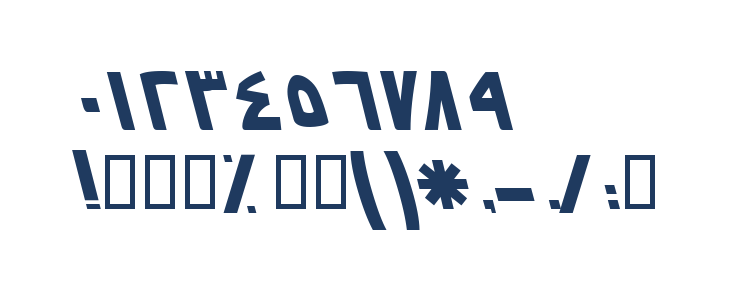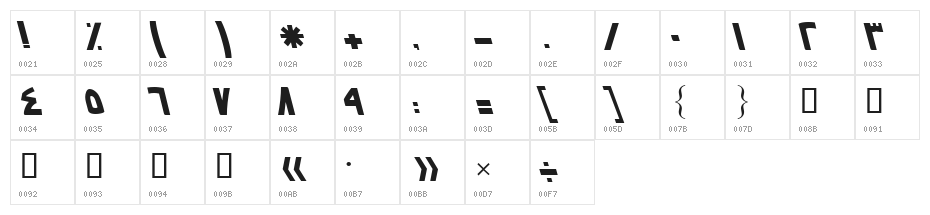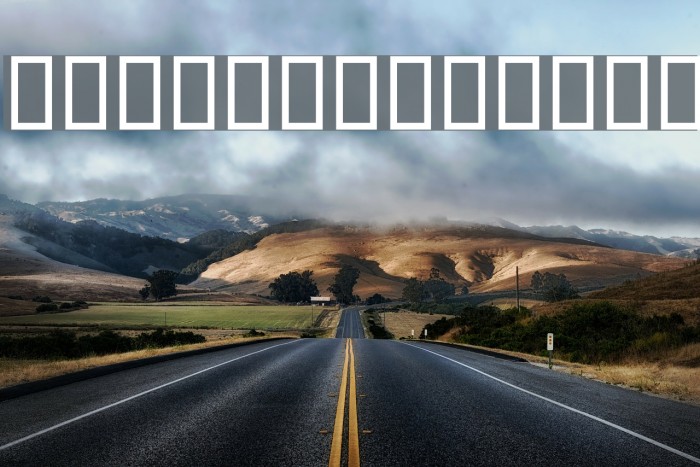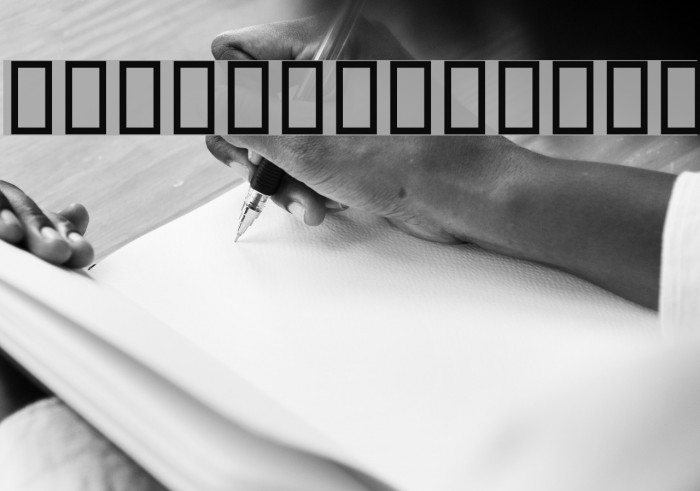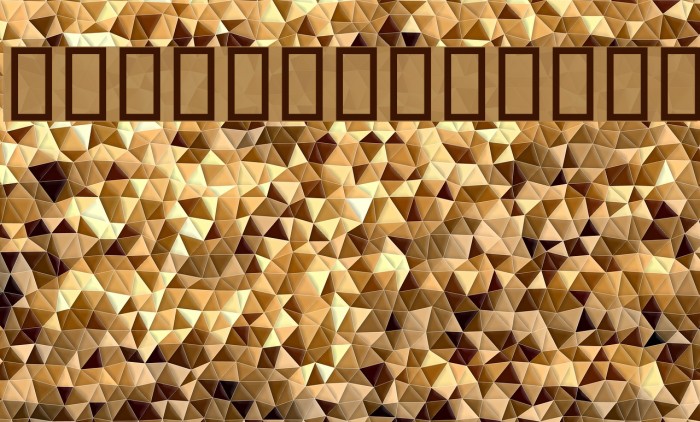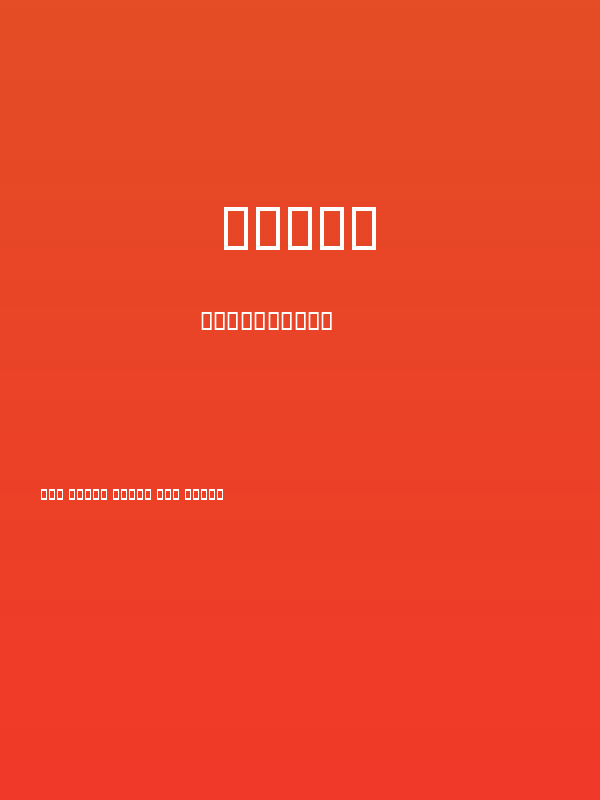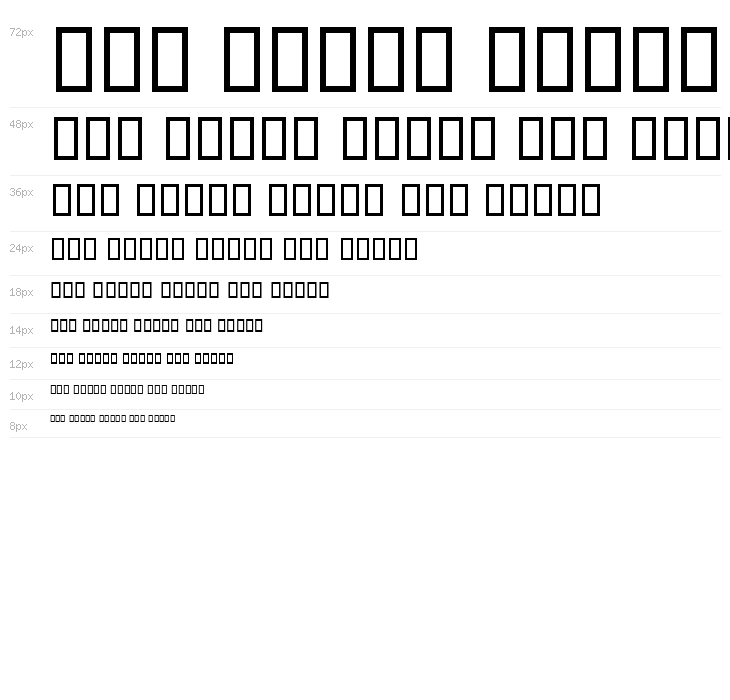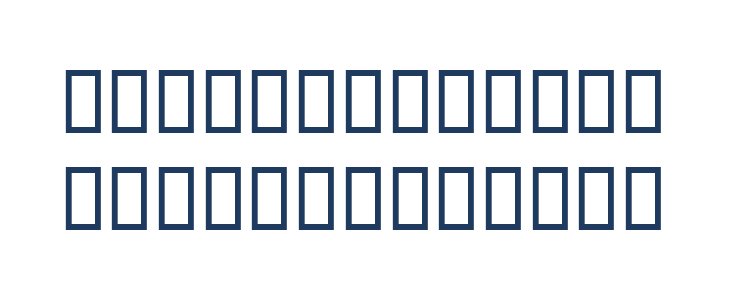
Nasim Font
Nasim Description
This font features a bold and dynamic style with a strong geometric influence. The characters are constructed with thick, angular strokes that give a sense of strength and stability. The numbers and special characters maintain this boldness, with unique shapes that add a modern twist. The overall appearance is striking and attention-grabbing, making it suitable for impactful designs. The font's design is consistent across all characters, providing a cohesive look that is both modern and slightly futuristic.
| Proposed Projects | Ideal for branding, posters, headlines, and any design requiring a bold statement. |